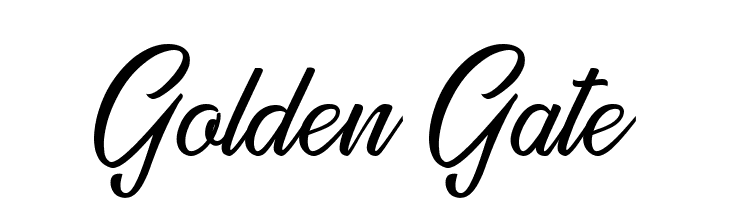
A bold, flowing script font with a lively, handwritten style.
A flowing, cursive script font with elegant loops and swashes.
A graceful and elegant script font with connected characters and a cursive style.
A classic cursive font with elegant, flowing lines and a sophisticated appearance.
A graceful script font with flowing, connected letters and elegant curves.
An elegant and flowing script font with refined cursive letters.
A decorative, calligraphic font with elegant swirls and artistic flair.